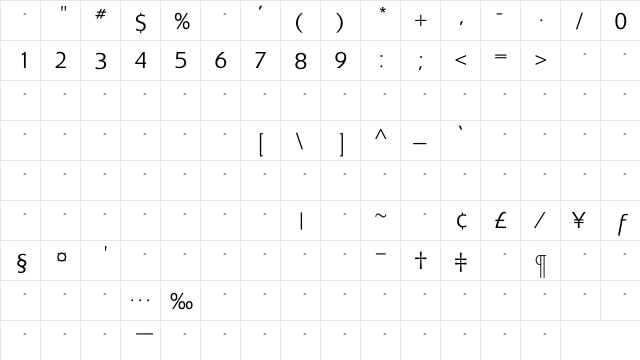
ExtensionLightTab Regular
Design Context for ExtensionLightTab Typeface
ExtensionLightTab takes a measured approach to typography — its balanced proportions and neutral character make it a reliable workhorse for both digital and print work. The delicate stroke weight brings airiness and refinement to layouts.